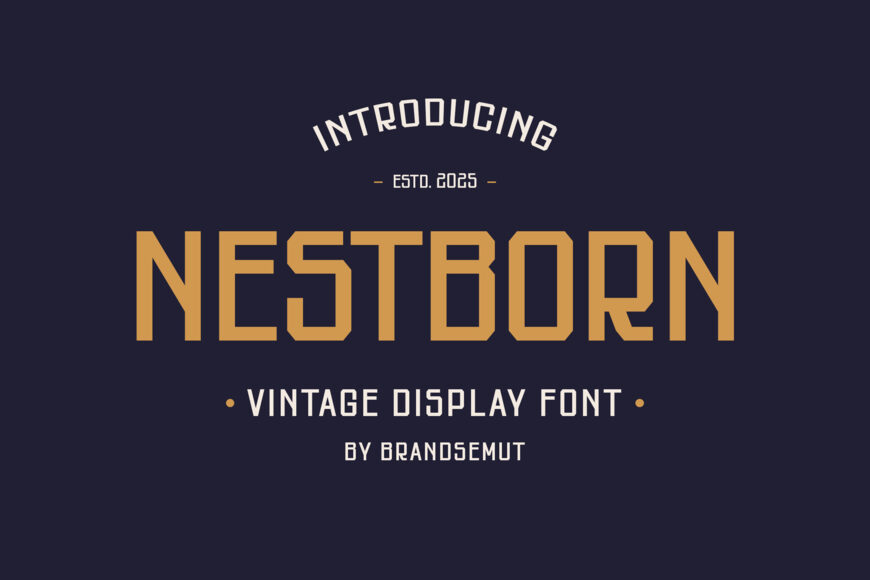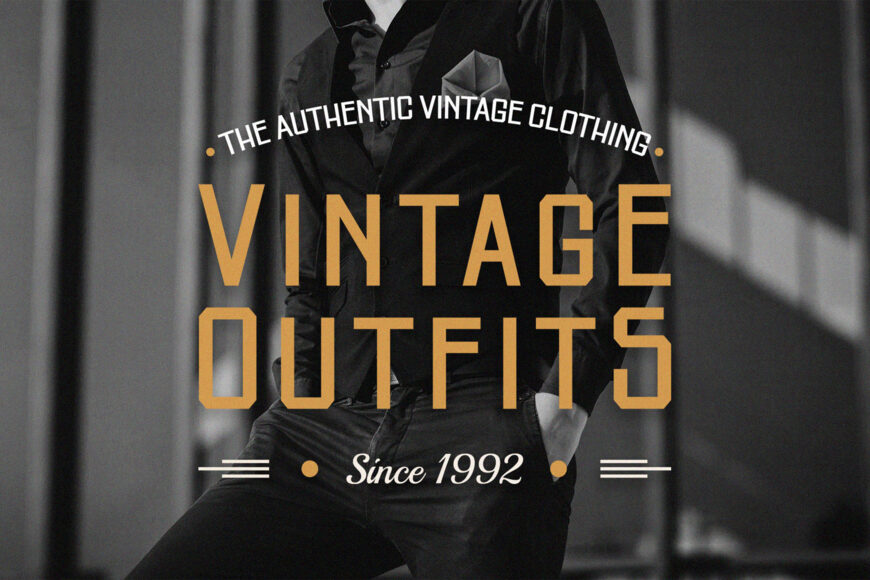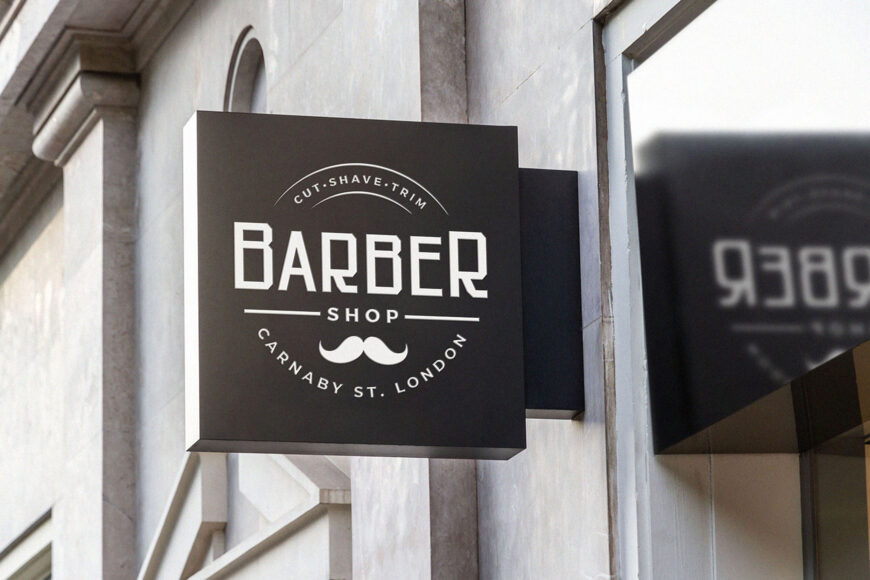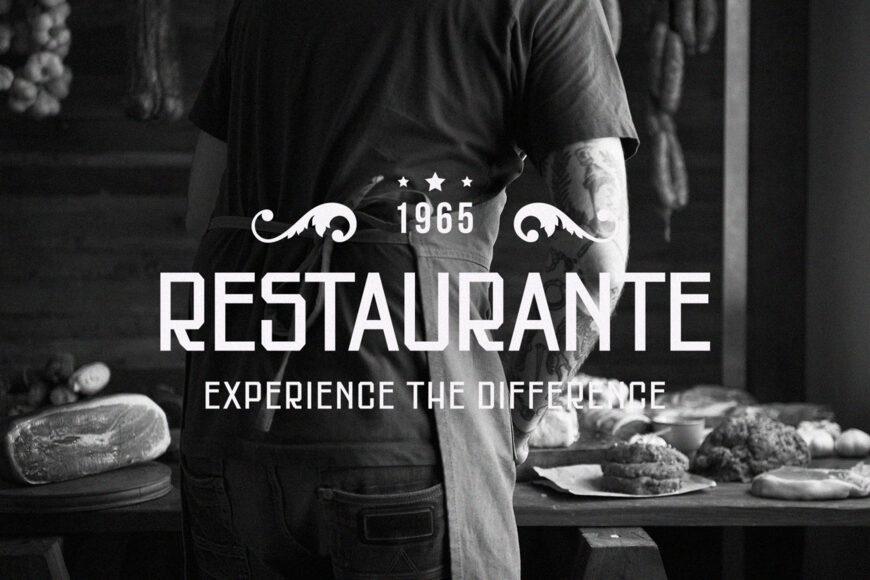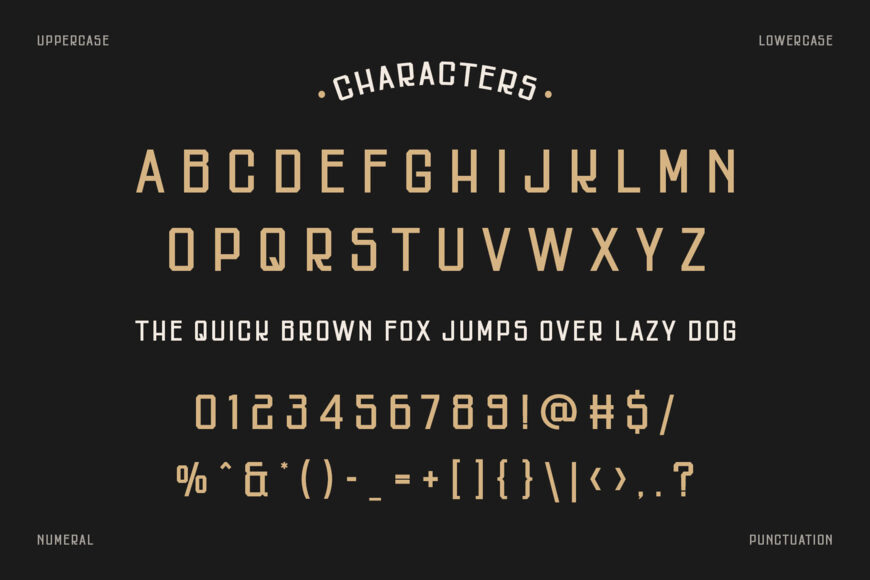
Nestborn Font
Designed by Brandsemut, Nestborn is a versatile condensed typeface tailored for bold, impactful branding.
Combining a classic, vintage aesthetic with a strong masculine style, it features tall, structured letterforms ideal for clothing labels, emblem logos, barbershop signs, and sports graphics. Its powerful retro charm and high-contrast lines make it a standout choice for prominent headlines and display text.